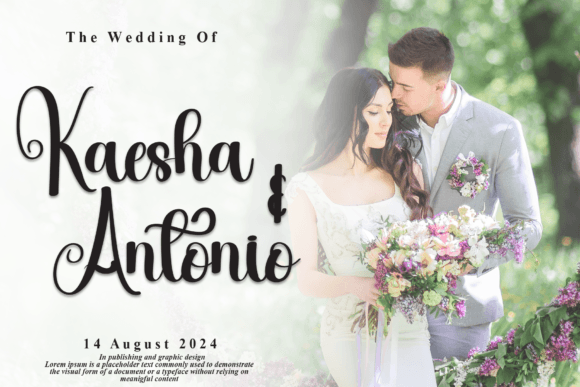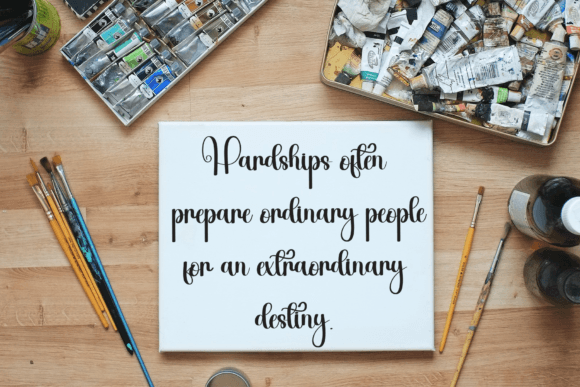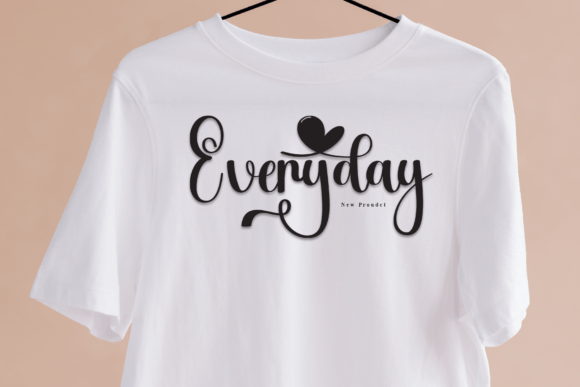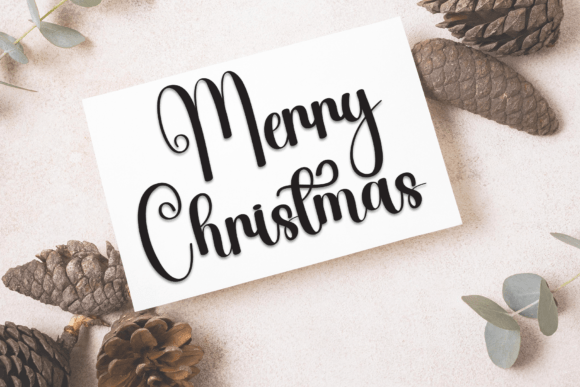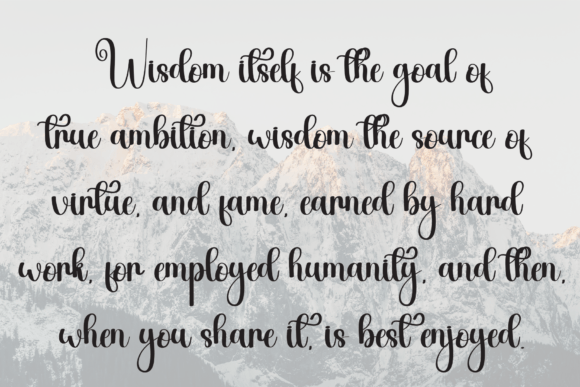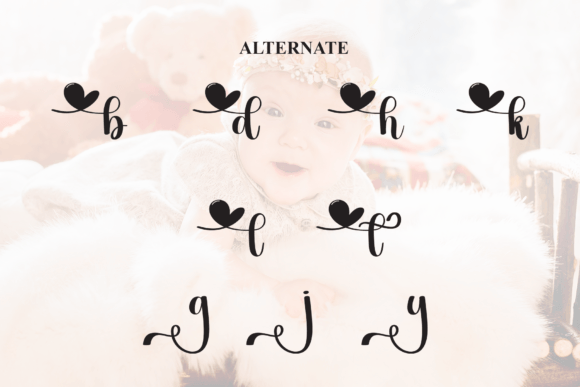
Baby Angel Font: Add a Touch of Whimsy to Your Designs
Are you looking for a font that can bring a dash of playfulness and joy to your designs? Look no further than the Baby Angel Font. This charmingly playful handwritten display font is perfect for adding a sprinkle of cheerful charm to your creations. With its distinctive handwritten appeal, it harmonizes playfulness and formality, making it an excellent choice for designers and crafters who want to create a memorable impact.
The Perfect Font for Whimsical Designs
The Baby Angel Font is designed to radiate sweetness and friendliness, right down to each stroke. Its playful and lively touch makes it perfect for wedding invitations, greeting cards, and any design that craves a dash of whimsy. Whether you’re a designer looking to add a personal touch to your clients’ projects or a crafter wanting to create unique and eye-catching designs, this font is sure to deliver.
Key Features of the Baby Angel Font
- Playful and Handwritten: The Baby Angel Font has a charmingly playful handwritten style that adds a touch of personality to any design.
- Whimsical and Fun: This font is perfect for designs that require a dash of whimsy and fun, such as wedding invitations, greeting cards, and party decorations.
- Distinctive Handwritten Appeal: The font’s distinctive handwritten appeal harmonizes playfulness and formality, making it an excellent choice for designers and crafters who want to create a memorable impact.
- Effervescent and Warm: The Baby Angel Font truly embodies effervescence and warmth, making it perfect for designs that require a lively and fun touch.
Uses for the Baby Angel Font
The Baby Angel Font is versatile and can be used for a variety of design projects, including:
- Wedding Invitations: Add a touch of whimsy and romance to your wedding invitations with this beautiful font.
- Greeting Cards: Create unique and eye-catching greeting cards for birthdays, holidays, and other special occasions.
- Party Decorations: Use the Baby Angel Font to create fun and playful party decorations, such as banners, garlands, and signs.
- Digital Designs: Add a touch of personality to your digital designs, such as social media graphics, blog posts, and email newsletters.
Why Choose the Baby Angel Font?
There are many reasons why you should choose the Baby Angel Font for your design projects. Here are a few:
- Unique and Eye-Catching: This font is sure to grab attention and make your designs stand out from the crowd.
- Easy to Read: Despite its playful style, the Baby Angel Font is easy to read and understand, making it perfect for designs that require a clear message.
- Versatile: This font can be used for a variety of design projects, from wedding invitations to digital designs.
- High-Quality: The Baby Angel Font is a high-quality font that is designed to deliver exceptional results.